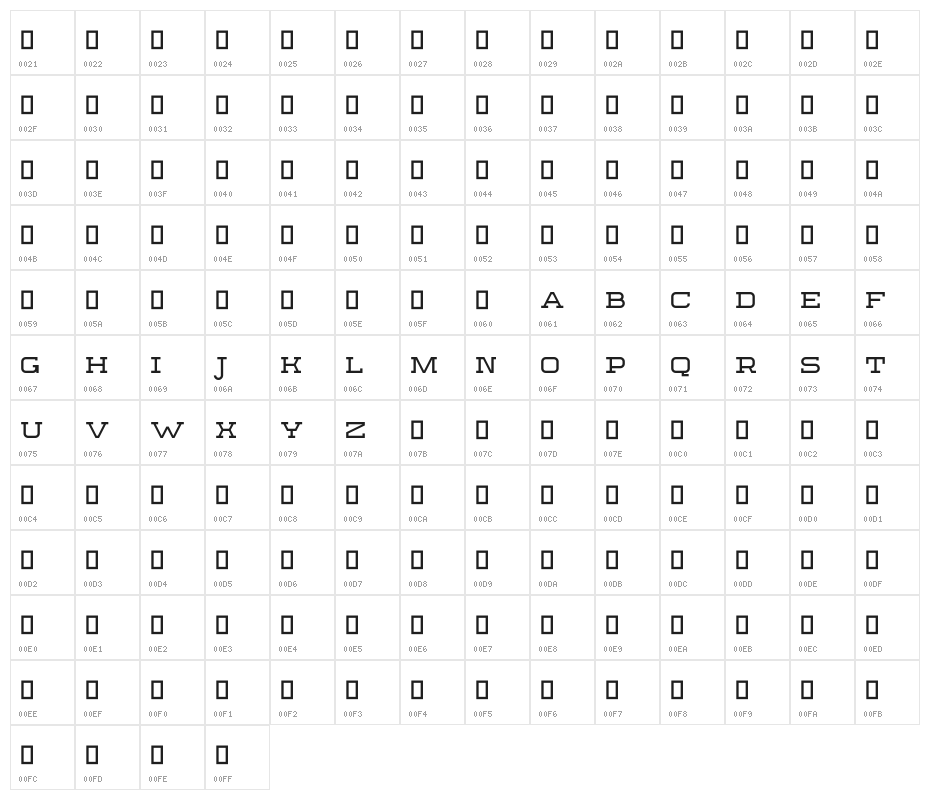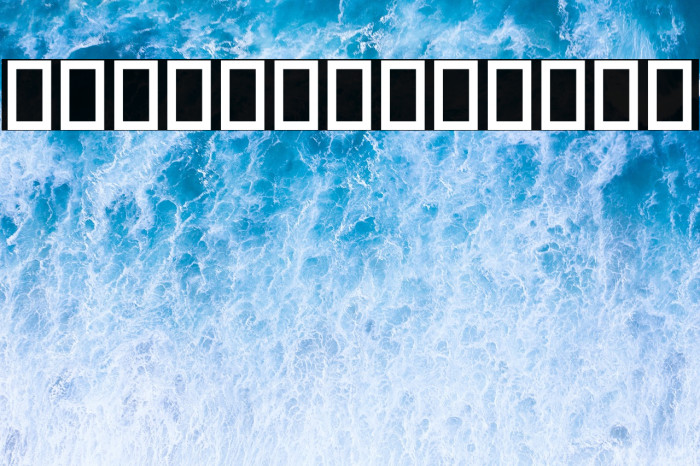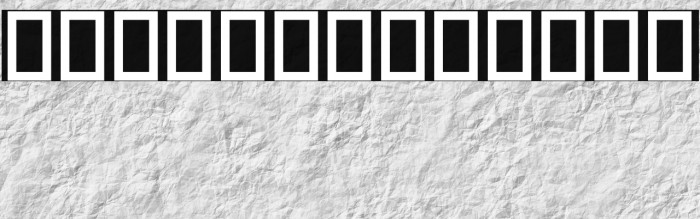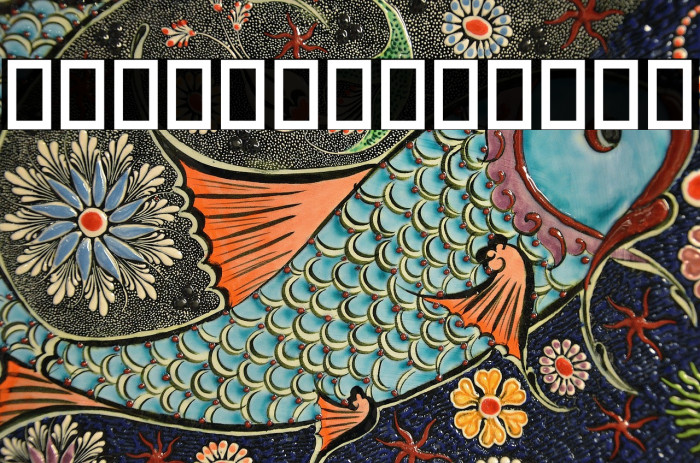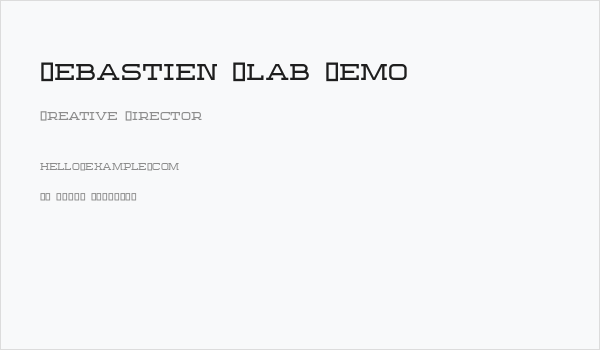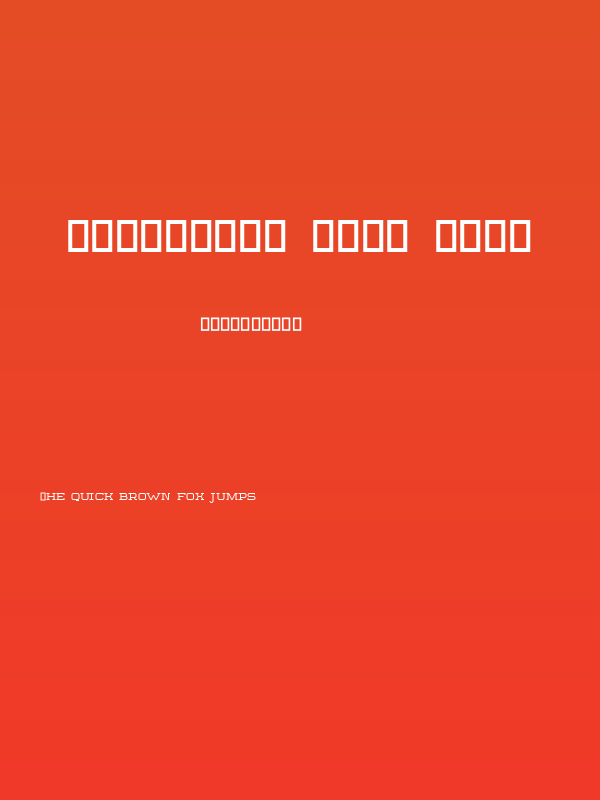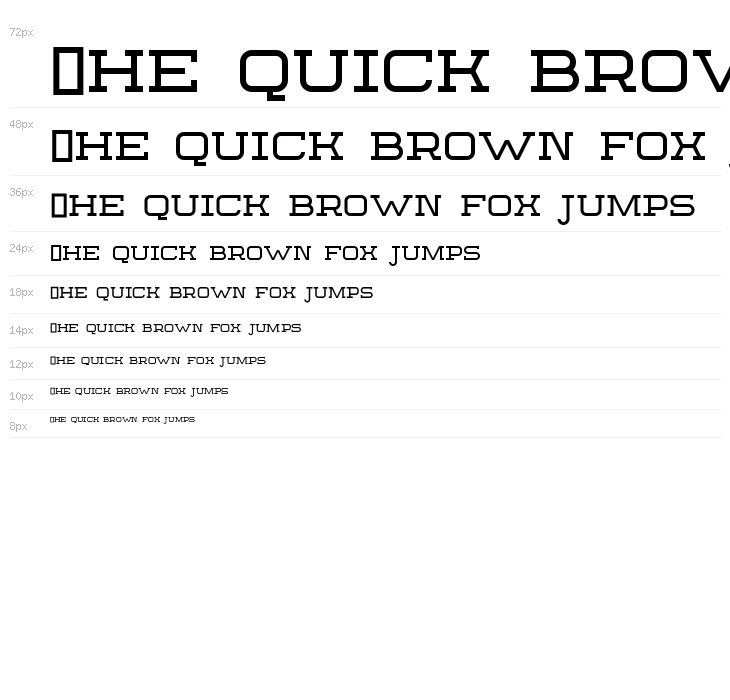
Sebastien Slab Demo Font
Sebastien Slab Demo Description
This font features a robust and structured design characterized by thick, block-like serifs that give it a strong presence. The uppercase letters are bold and commanding, with a uniform stroke width that conveys stability and confidence. The lowercase letters maintain the same boldness, ensuring consistency across different text sizes. The numerals are clear and easily distinguishable, making them suitable for various applications. The special characters are designed to match the overall aesthetic, providing a cohesive look. This font's slab serif style is ideal for projects requiring a bold and authoritative typeface.
| Proposed Projects | Ideal for headlines, posters, branding, and any design requiring a bold, authoritative typeface. |